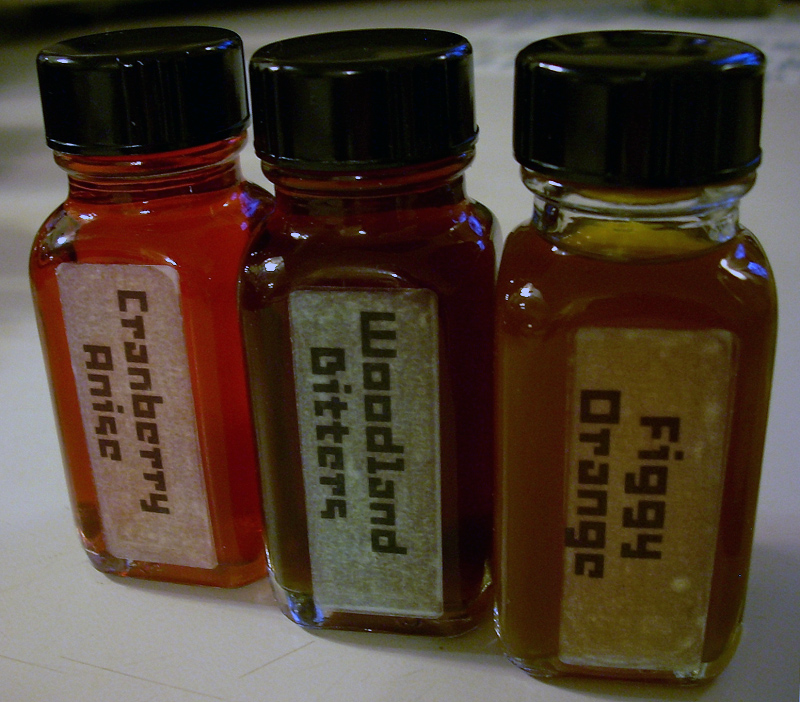
Font name: | Thirtysix |
Author: | Peter Van Lancker |
Constructed on a grid of 25/1000, or about six times more refined than the "six" font http://www.dafont.com/six.font. As the rhythm is 6 times weaker, there is 6 times more room for detail? "Proving" that character-timed rhythm can hardly be a factor of legibility. |